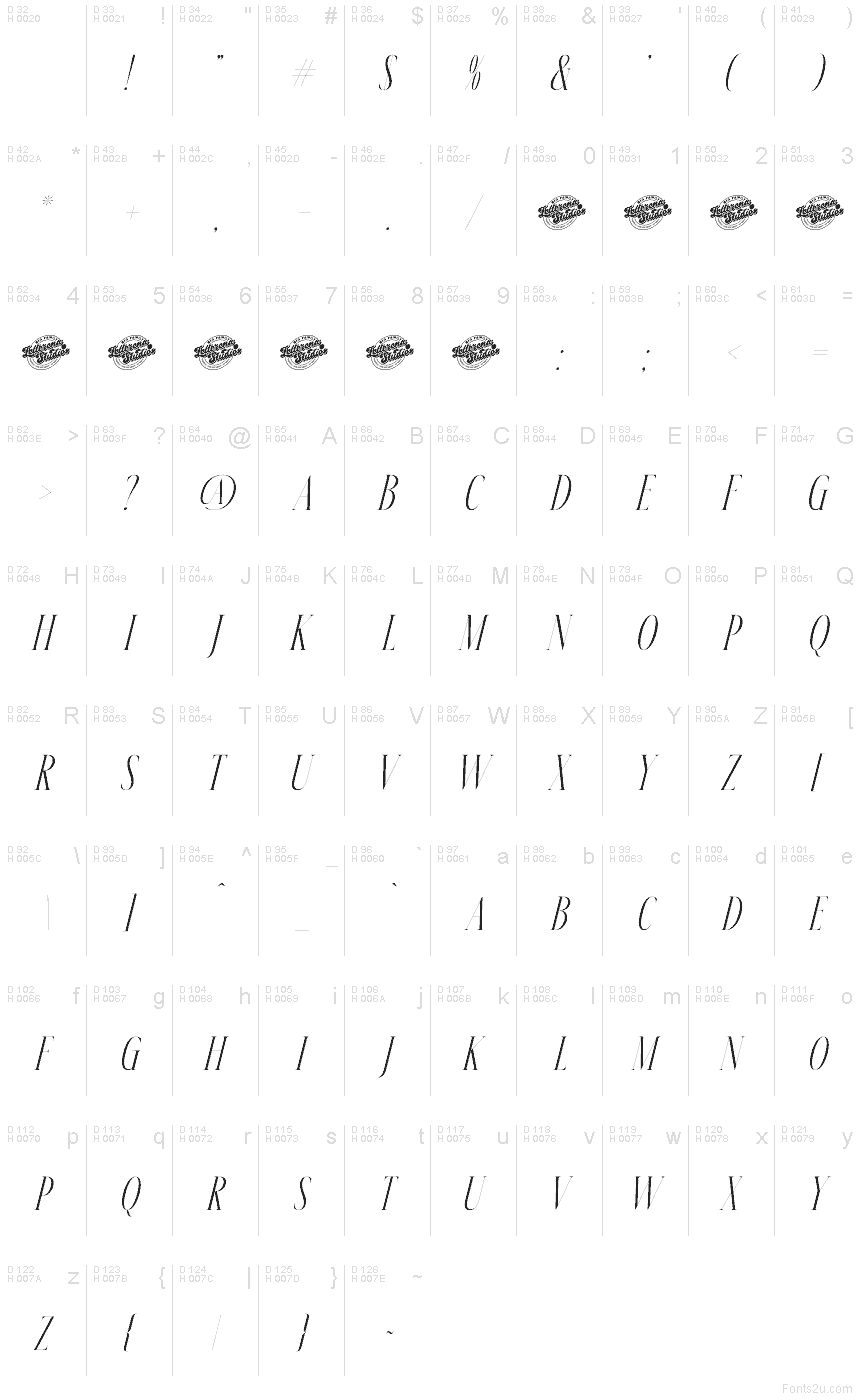
Meksron DEMO VERSION Italic
Meksron Italic font by Letterena Studios is a free elegant serif typeface with a distinctly fashion‑editorial edge. Its tall, razor-thin letterforms and graceful forward lean feel like they’ve been pulled from the masthead of a glossy magazine—sharp, airy, and dramatically refined. The Meksron family’s italic style adds a sense of momentum, giving headlines a brushed, inky sweep while keeping the texture clean and sophisticated.
Using Meksron Italic, this free font shines on magazine covers, luxury branding, beauty packaging, perfume labels, posters, and high-end social graphics. The narrow proportions make it easy to fit long names or phrases into tight spaces without losing grandeur or legibility. For balance, pair Meksron Italic with a simple geometric sans at smaller sizes, letting Meksron handle the statement words and the sans carry supporting details.